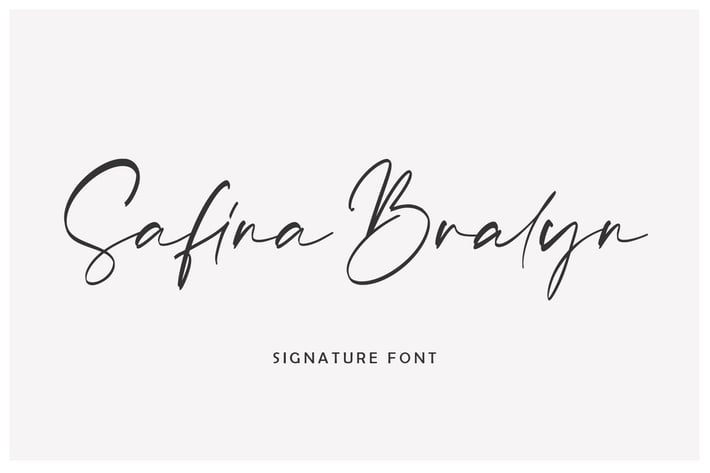
Safina Bralyn | Signature Font
Introducing my latest font is Safina Bralyn, a handwritten Signature font which is very elegant and modern for you to use and your design interests be it for logos, branding names, posters, podcasts and so on. This is perfect for you all.
Feature 1.Uppercase & Lowercase 2.Numeral & Punctuation 3.Multilingual 4.Ligatures